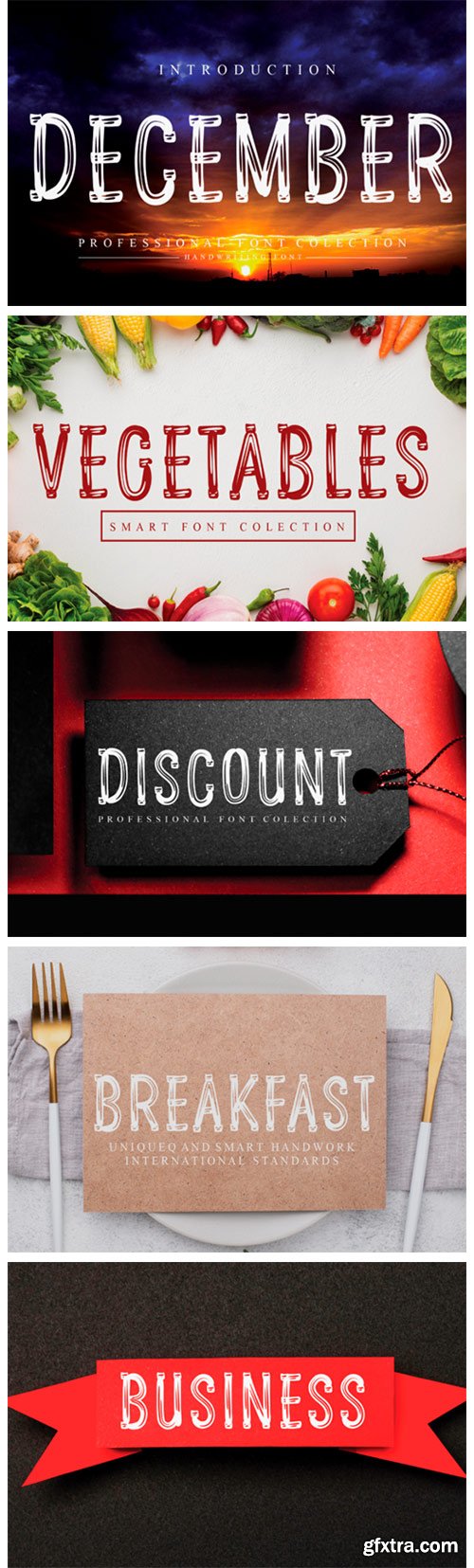
December Font
December is a brushed and thick lettered display font. Add this font to your favorite creative ideas and notice how it makes them come alive!